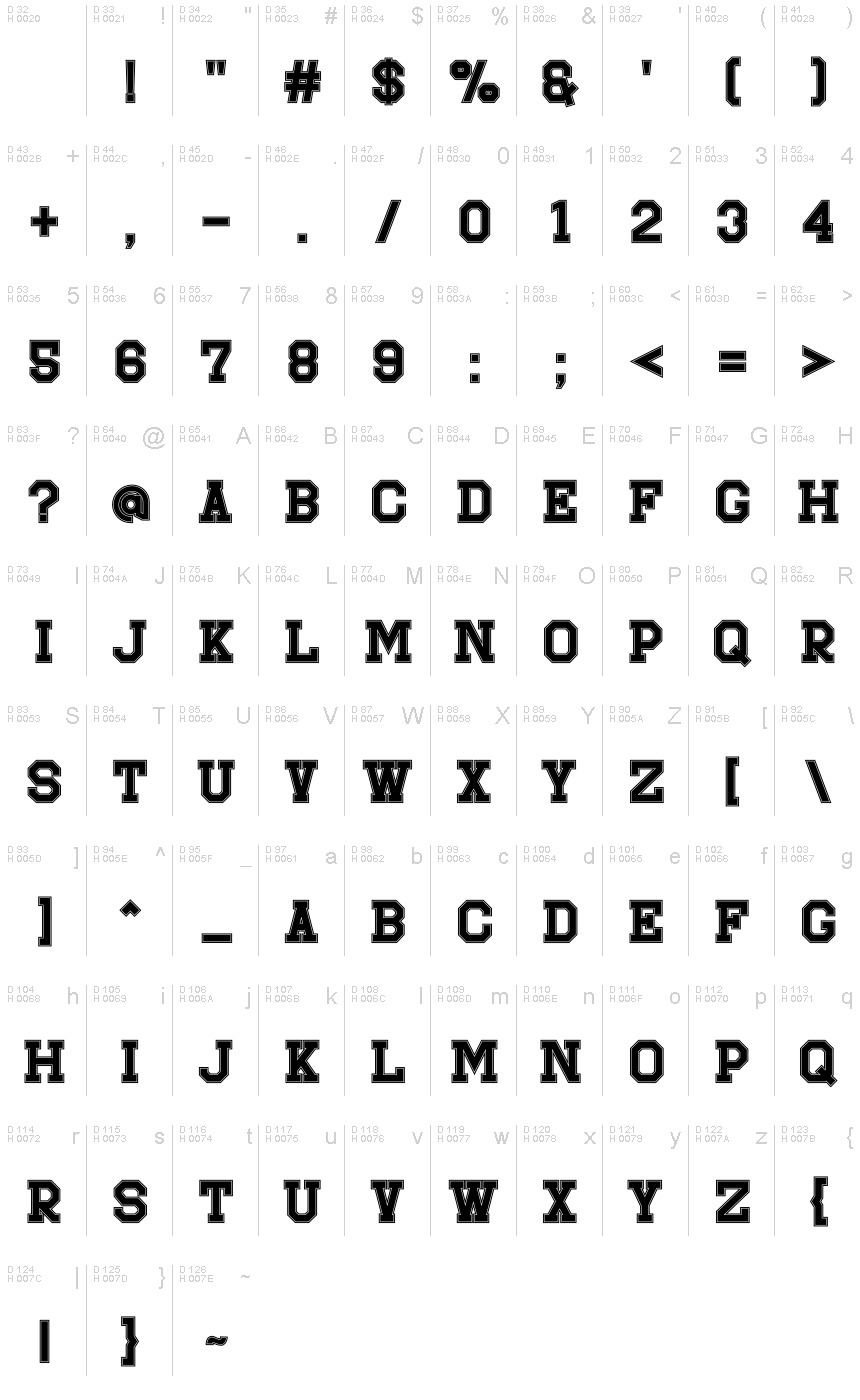
Sportfield Varsity Outline 2
Sportfield Varsity Outline 2 font, by Rvandtype, features an old-school display style whose bold letters exhibit a retro sporty style that takes the viewer back in time. This one-of-a-kind typeface will take the reader instantly to sports stadiums and fields thanks to its classic athletic structure inspired by varsity uniforms. The geometric letters also provide sharp outlines with wide body depths and circular corners.
The free display font can be suitable for fashion branding designs related to the sportswear market. It will also give an exceptional twist when used for logos, branding items, art frames, badges, or vintage apparel.